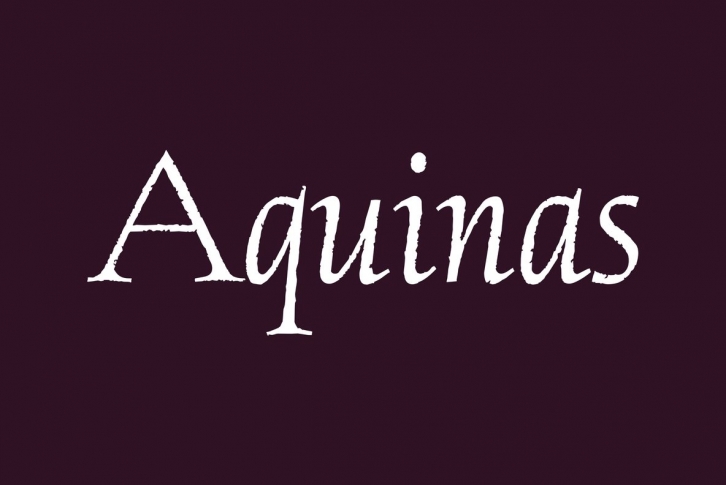
Leading British designer David Quay created this elegant Roman typeface with strong, classical letterforms. Aquinas creates a graceful, rough edged pen-on-parchment effect and is the perfect choice where an expensive, upscale look is required.